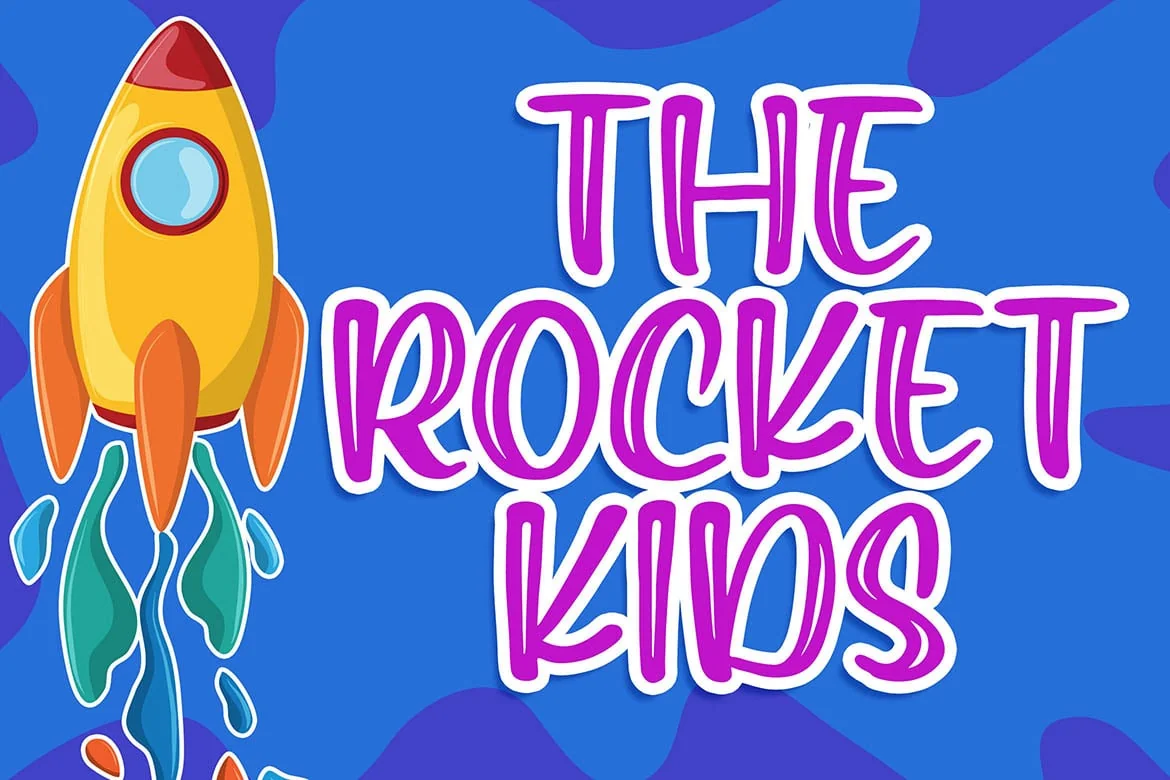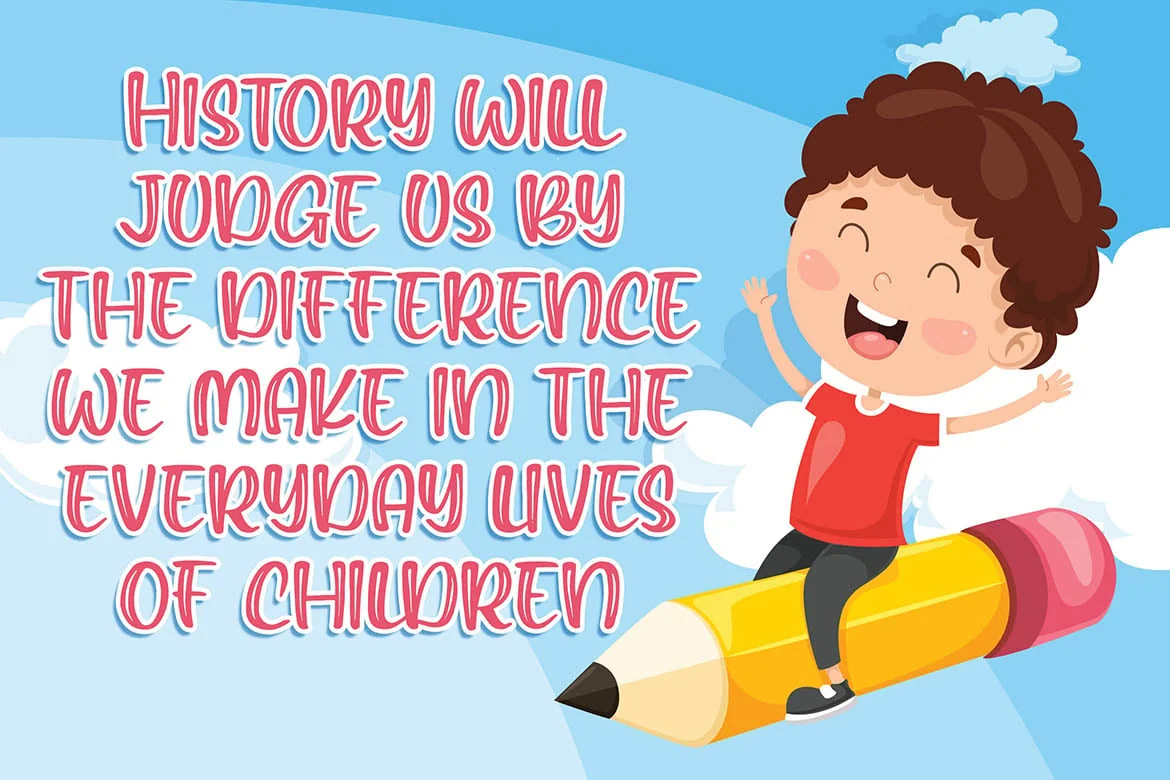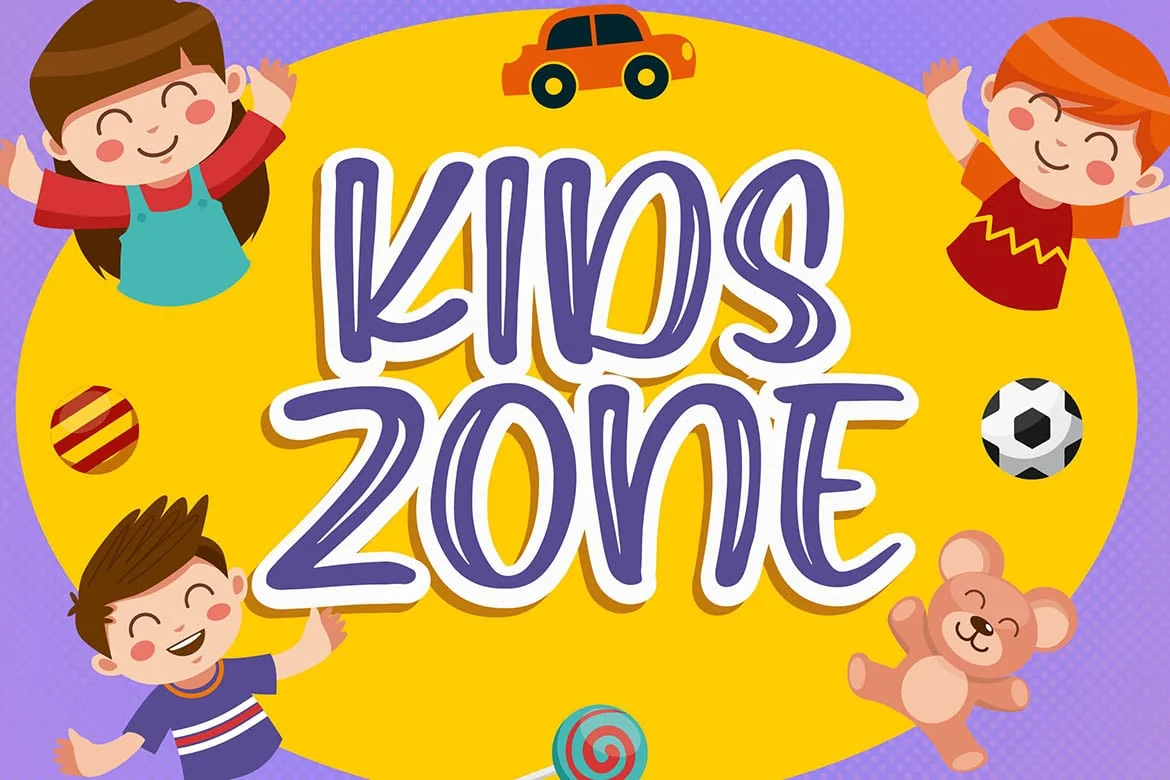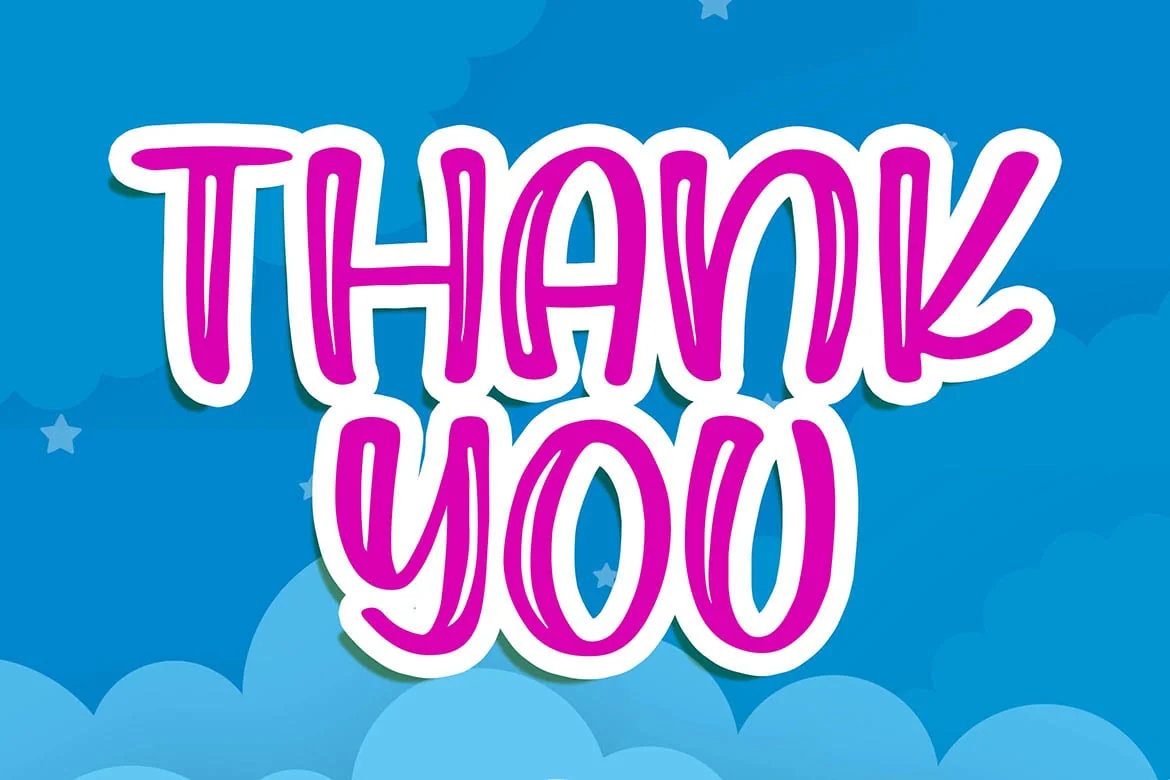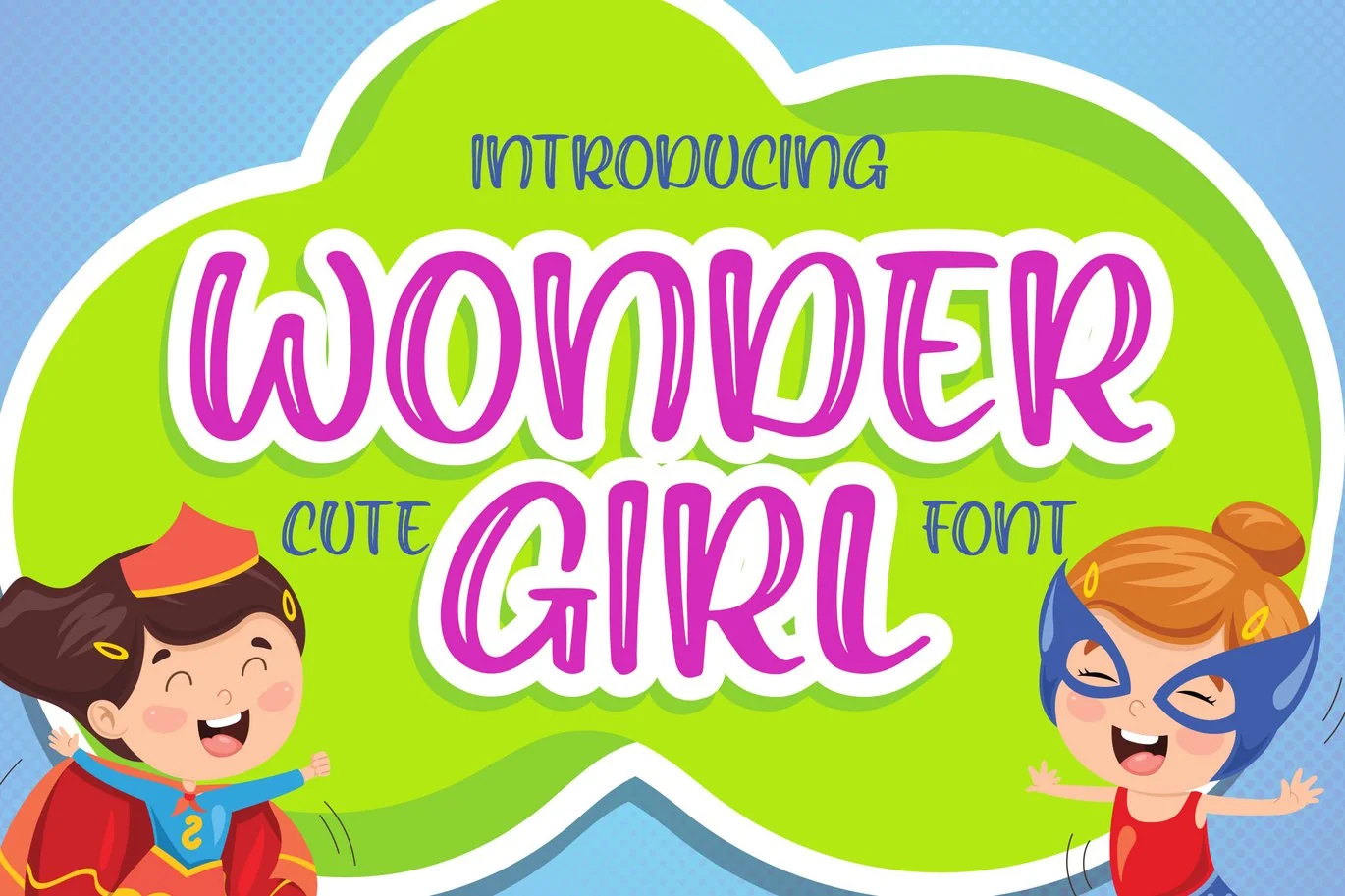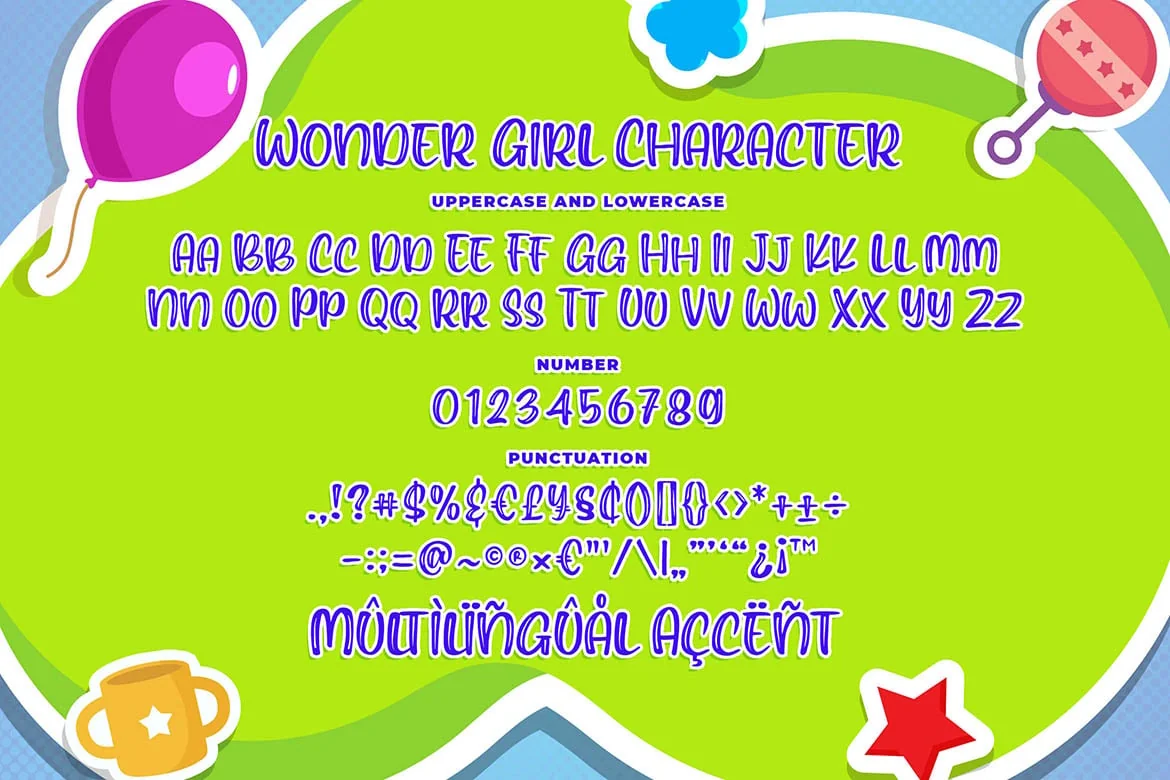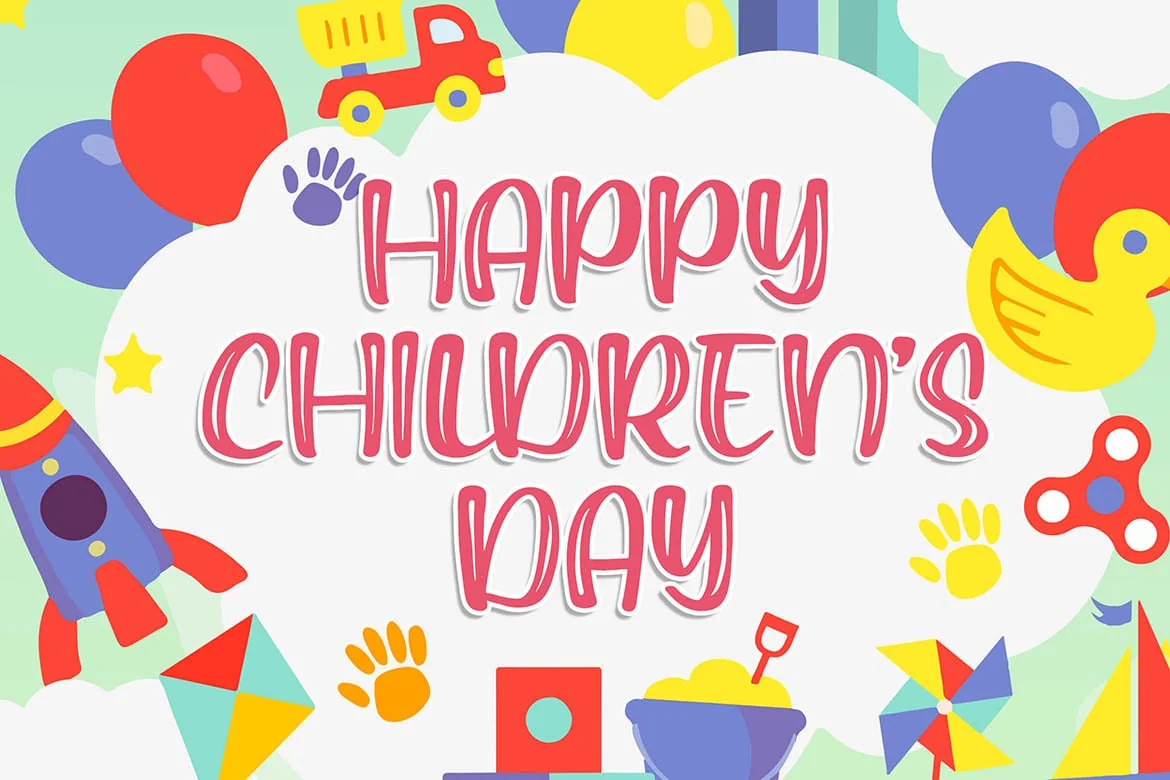
Wonder Girl – Cute Font
Introducing of our new product the name is Wonder Girl Cute Font. Wonder Girl inspired by modern calligraphy this font is a fun theme very good for kids, comic, food logo, food menu, wedding invitation, logotype and etc
MULTILINGUAL ACCENT :
ØÆøæ¢ÐŒœÁĂÂÀÄĄÅÃǼĆČÇĈĊĎÉĔĚÊËĖÈĘĞĜĢĠĤÍĬÎÏİÌĮĨĴĶĹĽĻĿŃŇŅÑÓŎÔÖÒŐǾÕŔŘŖŚŠŞŜȘŤŢÚŬÛÜÙŰŲŮŨẂŴẄẀÝŶŸỲŹŽŻáăâäàąåãǽćčçĉċďéĕěêëėèęğĝģġĥíîïìįĩĵķĺľļŀńʼnňņñóŏôöòőǿõŕřŗśšşŝșťţŭûüűùųůũẃŵẅẁýŷÿỳźžż